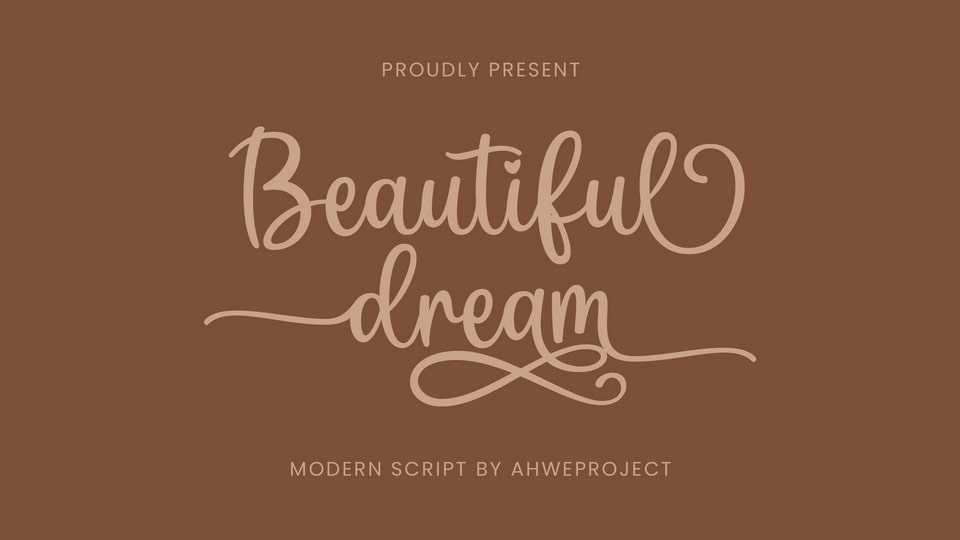
Download Beautiful Dream font, a romantic and sweet calligraphy typeface with characters that dance along the baseline. It has a casual, yet elegant touch.